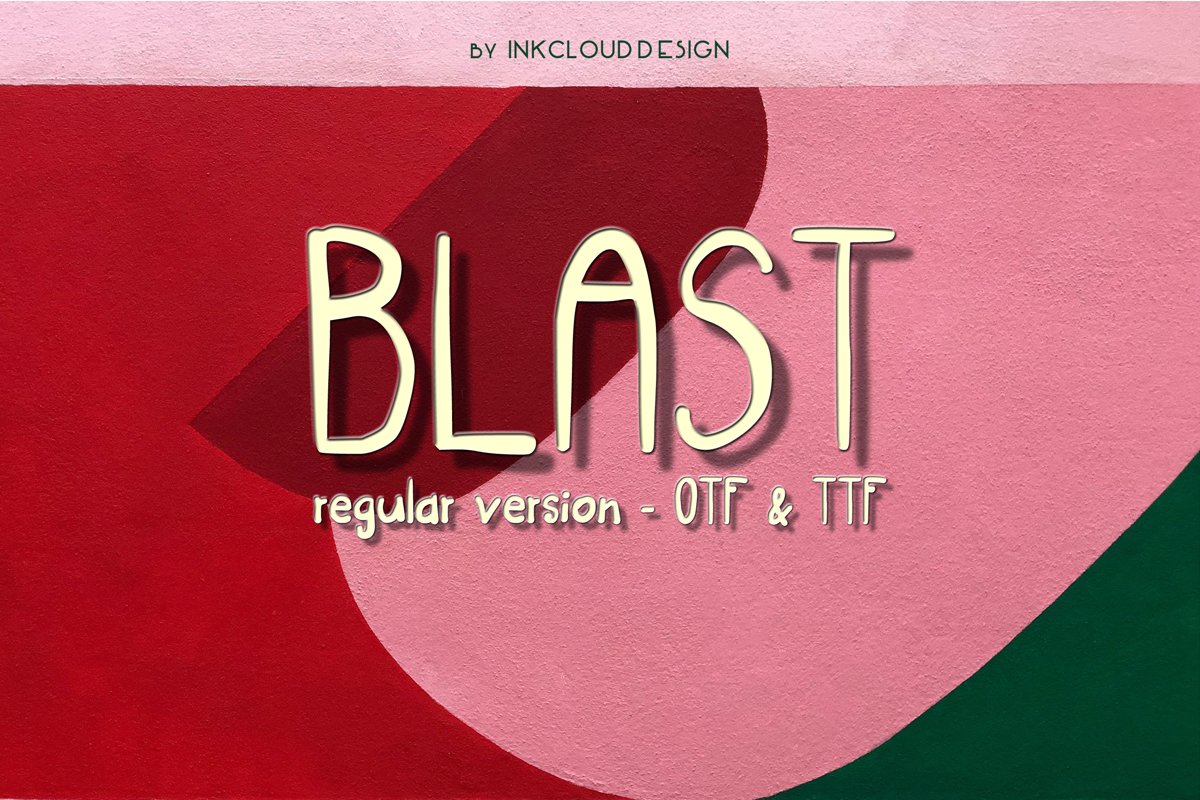
Blast - A joyful handwritten script font !
Blast is a
cheerful and charming script
font with a unique twist. Get
inspired by its unique feel, and add a warm and friendly feel to any
design idea.